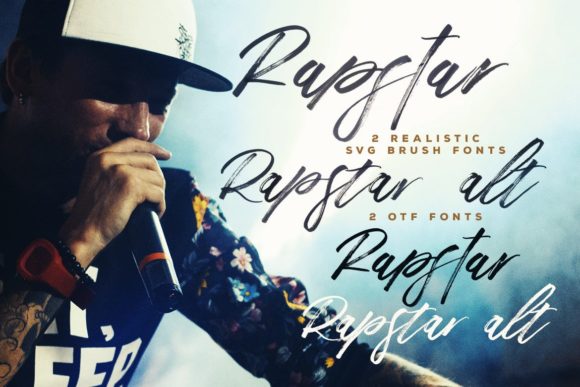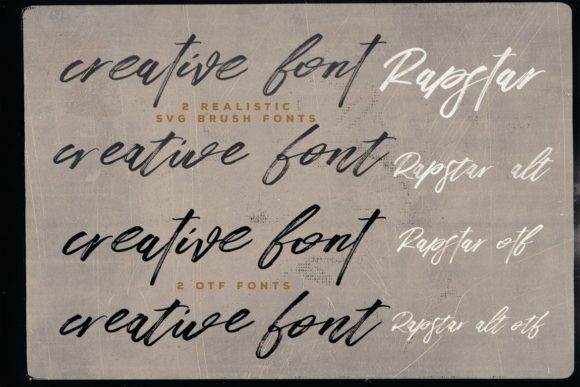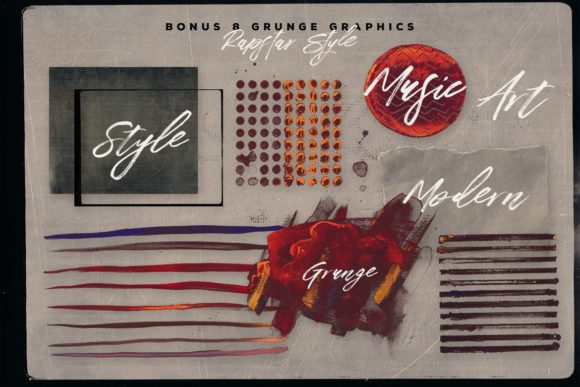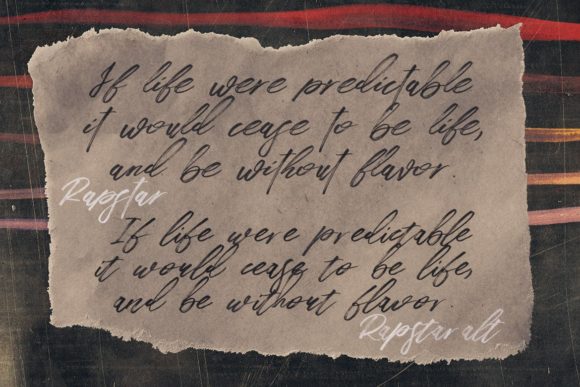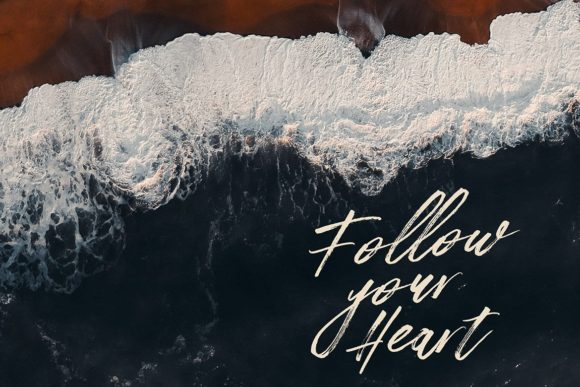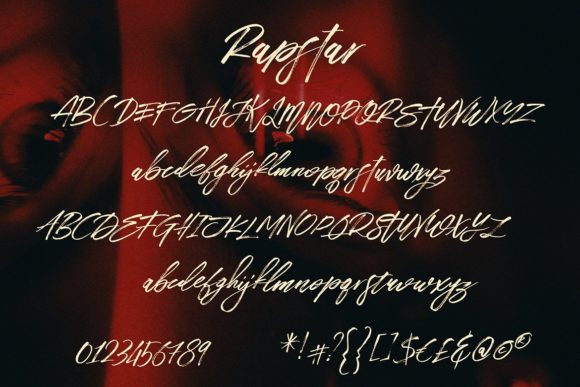
Introduction to Rapstar Font
Have you ever been in the middle of a design project, staring blankly at your screen, trying to find that perfect font to bring your vision to life? You know, that magical moment when everything clicks, and your design starts to feel truly alive?
For designers, finding the right font can be a game-changer. It’s what sets a good design apart from a great one. And that’s where the Rapstar Font comes in – a bold, charming handwritten font with incredible swashes that will add a dynamic feel to any design project.
Key Features of Rapstar Font
- High-quality design for creative projects: Rapstar Font is designed to elevate your designs and stand out from the crowd.
- Unique, bold, and edgy design: Stand out from the crowd with the distinctive style of Rapstar Font
Honest Review: Rapstar Font
I recently had the chance to try out the Rapstar Font, and I must say, it’s a great addition to any design resource collection. The font is perfect for a creative project that requires a bold and edgy touch.
What works well: ✨ The Rapstar Font comes in a variety of styles, making it versatile for different design applications. The font is also available for free download, which is a huge plus for designers on a budget. I appreciate the transparent background, which makes it easy to work with.
Some limitations: ⚠️ While the font is high-quality, it may not be suitable for all types of projects. The bold and edgy design might not be the best fit for more conservative or traditional designs.
Overall impression: I’m really impressed with the Rapstar Font. It’s a great design resource that can add a lot of character to a project. The free download option is a big plus, and the transparent background makes it easy to work with. I would definitely recommend the Rapstar Font for any designer looking to add a bold touch to their creative project.
The Rapstar Font is perfect for:
- Music and entertainment projects.
- Event invitations and promotional materials.
- Graphic design projects requiring a modern and edgy look.